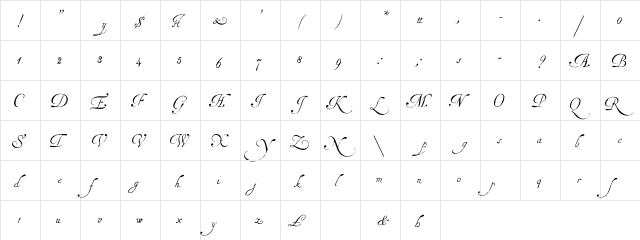
Copperplate 1672 WF Regular
Design Context for Copperplate 1672 WF Typeface
Copperplate 1672 WF takes a measured approach to typography — its balanced proportions and neutral character make it a reliable workhorse for both digital and print work.